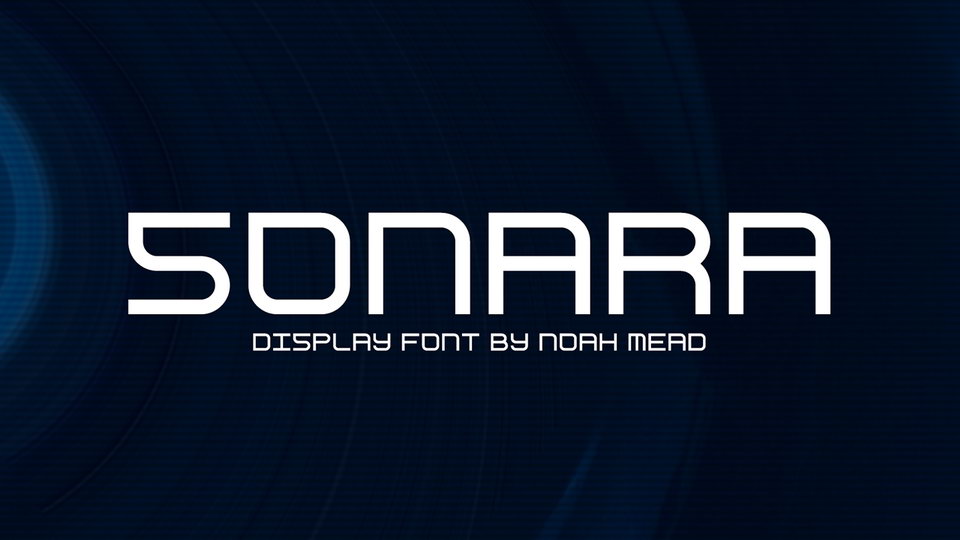
Download Sonara font family, a modern display font family inspired by digital era in 4 fonts. Great for logo design in tech industry and startups, headlines, posters, banners an other creative designs.
Designer: Noah Mead